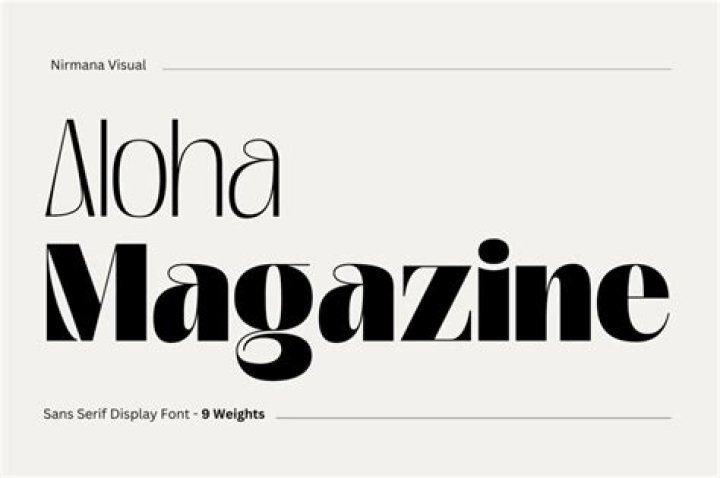
Most popular fashion magazines use serif fonts like Bodoni or Didot as their standard font but today more and more magazines are started to use original, custom made fonts.
What fonts does vogue use?
Vogue Magazine’s logo has advanced in recent years, but its look remains firmly planted in font styles of the Didone. Beginning in 2015, the of Sans-Serif lettering has been used for the spread content and body as determined by Terminal Design Group for Vogue Magazine.
How do I choose a font for my magazine?
Tips for Choosing Fonts for Magazine Design
- Font style: consider the emotional attributes embedded in a font and how they relate to your readership.
- Font combinations: Find the perfect pairing of a serif font and a sans serif.
- Create contrast: Choose fonts that are different enough to create a strong contrast.
What is the most professional looking font?
10 Best Professional Fonts
- Helvetica / Helvetica Neue / Helvetica Now. Without a doubt, Helvetica is the most heavily used font by professionals in graphic design.
- Garamond Pro.
- Futura.
- Bodoni.
- Bickham Script Pro.
- Frutiger.
- Sabon.
How many fonts should a magazine use?
Traditionally, it is advised to keep the font limit to 3 different styles. However, that should be done ONLY IF required. Additionally, when using different typefaces for your magazine design, choose fonts that are different enough to create a strong contrast. This will help guide the reader through the magazine.
What is the best font for a magazine?
Kaiju Font. The Kaiju font is one of the most popular magazine fonts in Japanese and the revamped typeface that is created, brings a lot of professionalism and classiness to the articles. Metrix Display Font . The Begade Open type font is a simple font that can be used as one of the best magazine fonts.
What is the best modern font?
Helvetica Neue is one of the most popular font style used in this modern generation which is rank as one of the top best-selling fonts of all time. This font has 51 font weights available including light, italic, bold, black and others.
What does font do magazine use?
More formal magazines covering business, political or social commentary, or human interest stories, use typefaces that communicate a sense of authority and impact. Many contemporary newspapers use similar typographic styles too. For a typeface that looks both serious and cutting-edge, you can’t go wrong with a strong sans serif.